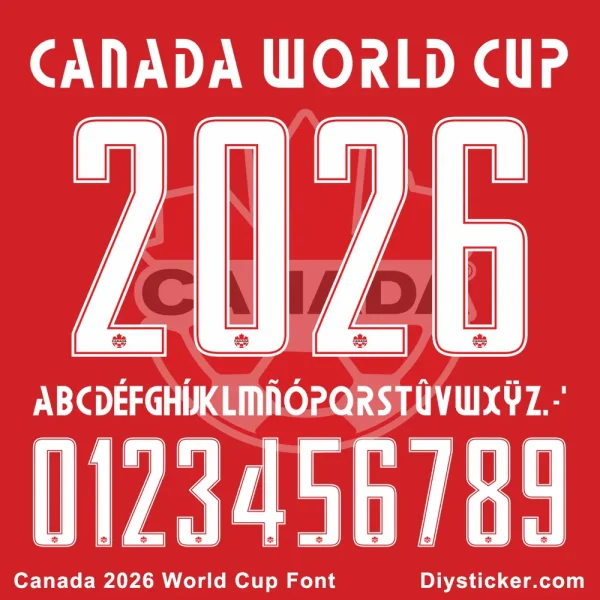
Canada 2026 World Cup Font – Home/Away Kits
Canada 2026 World Cup Font – Complete Vector Font Set
Get ready for the biggest soccer event in North America with the Canada 2026 World Cup Font. This bold, modern typeface is inspired by the official host country branding and is ideal for creating professional designs, fan art, promotional materials, and custom apparel.
🔥 Features:
Uppercase A–Z, numbers 0–9, punctuation
Clean, athletic, bold letterforms